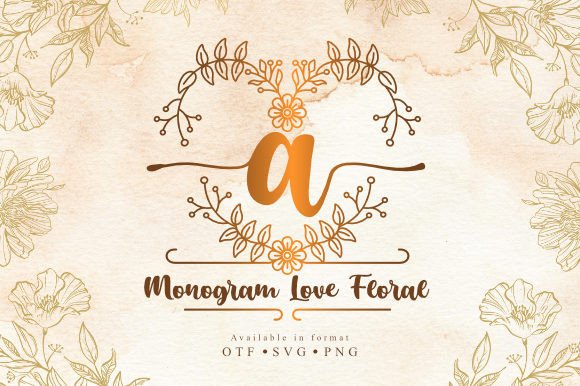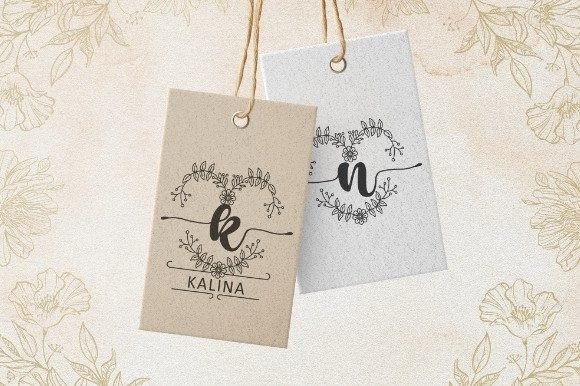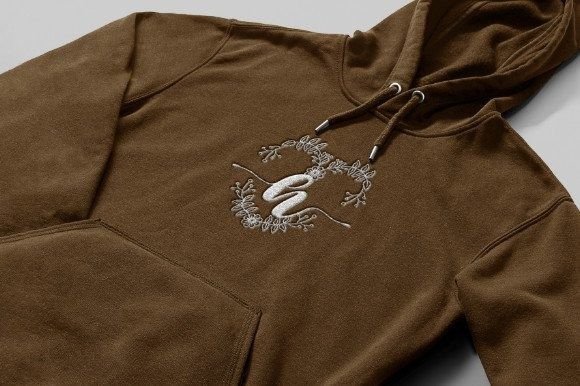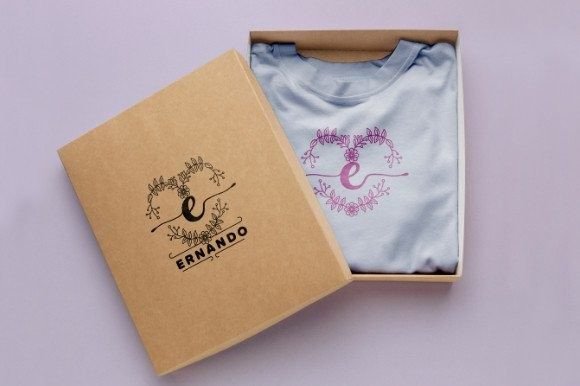
Monogram Love Floral Font
About the Monogram Love Floral Font
Introducing the Monogram Love Floral Font, a beautifully crafted typeface designed to elevate your creative projects. Monogram Love Floral is a romantic botanical decorative font. Featuring delicate floral ornaments, this monogram font is perfect for any creative project.
Its delicate floral elements make it ideal for projects requiring a touch of romantic elegance, such as wedding invitations, stationery, or branding for floral businesses and related products. It excels in headlines, short text blocks, and logos, adding a visually appealing decorative element. However, its ornate nature makes it unsuitable for body text or UI elements where readability is paramount.
For optimal visual harmony, pair Monogram Love Floral with a clean sans-serif font like Lato or Open Sans for body copy, maintaining readability while complementing the font’s decorative style. Alternatively, a classic serif like Garamond or Playfair Display can create a sophisticated and timeless pairing, enhancing the romantic feel.
The overall personality is undeniably romantic and feminine, conveying a sense of delicate beauty and refined charm. Avoid pairing with overly bold or geometric fonts which might clash with its intricate design.